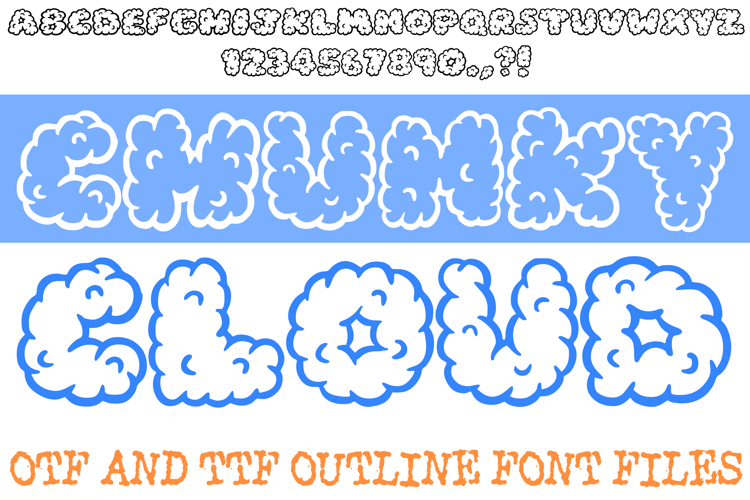
The Chunky Cloud Font is a dreamy, high-energy display typeface featuring voluminous, soft-serve letterforms inspired by fluffy cumulus clouds. With its thick, rounded "puff" outlines and playful hand-drawn texture, this font is a premier choice for designers working on children’s book titles, nursery wall art, whimsical branding, and sky-themed social media content.
The design captures a sense of lightheartedness and imagination, making every word feel as if it were floating. Whether you are building an identity for a toy brand or designing vibrant apparel for a summer festival, this font provides a fun, high-impact aesthetic that is both decorative and remarkably legible.
Why Your Designs Will Stand Out
Voluminous Puff Construction: The heavy, billowy weight of the letters gives your text a friendly, approachable, and modern "bubble" look.
Whimsical Cloud Outlines: Each character maintains a unique, cloud-like shape that captures the joy of a clear blue sky.
Soft Hand-Drawn Texture: Subtle interior "puff" marks add a layer of tactile, organic depth to the bold letterforms.
High-Visibility Display: The thick, clean outlines ensure that your headlines remain impactful and clear on posters, t-shirts, and digital banners.